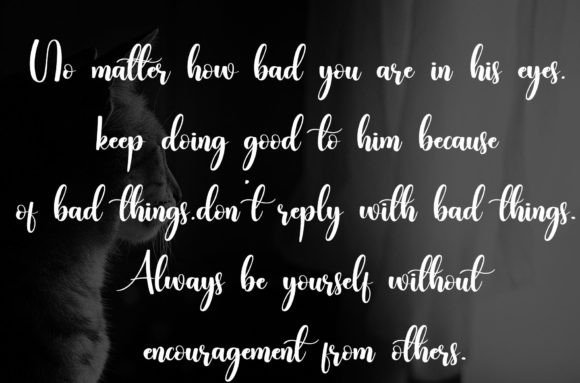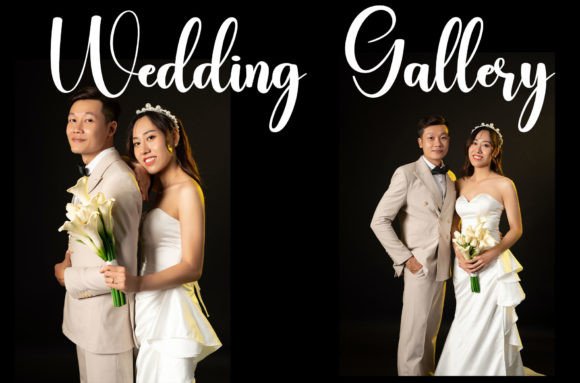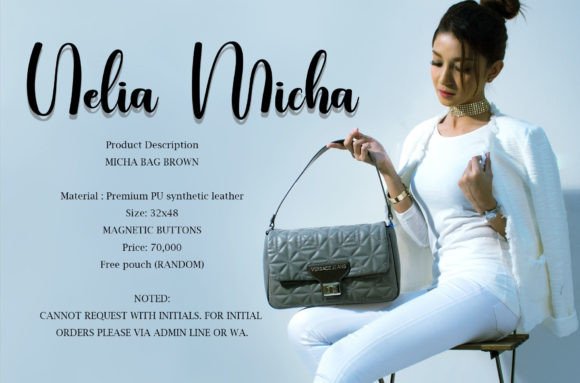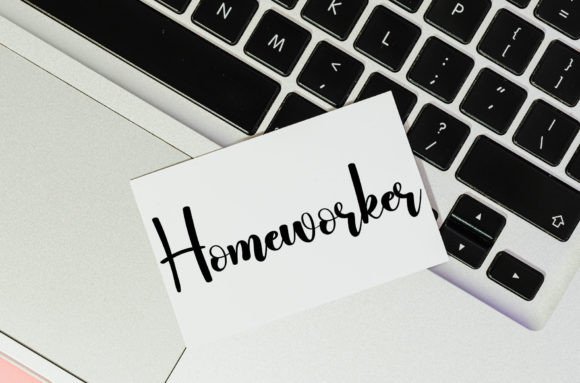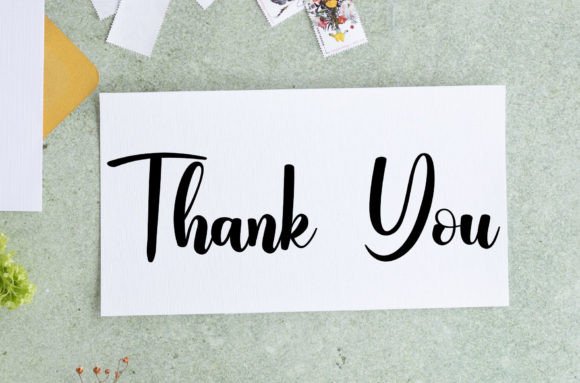
Introduction to Manual Font
As a designer, there’s nothing quite like the feeling of bringing a creative project to life. You’ve poured over inspiration, crafted a concept, and finally, it’s time to add the finishing touches. That’s when the right font can make all the difference. Imagine the gentle curves and playful flourishes of a handwritten font, perfectly capturing the essence of your design.
That’s where Manual Font comes in – a sweet and smooth handwritten font that’s sure to add a personal touch to your designs. With its high-quality, transparent background, this font is a design resource that’s both versatile and easy to use.
Key Features of Manual Font
- Manual Font is a design resource that can be easily integrated into any creative project
- Unique, hand-drawn design elements and subtle texture add a touch of elegance and sophistication
Honest Review: Manual Font
As a designer, I’m always on the lookout for high-quality fonts to elevate my creative projects. Recently, I stumbled upon the Manual Font, and I must say it’s been a game-changer.
- The Manual Font offers a unique and distinctive aesthetic that sets it apart from other fonts.
- The font is highly customizable, allowing you to tailor it to your specific design needs.
- The Manual Font may not be suitable for all design projects, particularly those requiring a more straightforward or modern aesthetic.
Overall, I’m thoroughly impressed with the Manual Font. Its unique style and high quality make it an excellent addition to any designer’s toolkit. With its free download and customization options, it’s a design resource that’s hard to pass up.
Manual Font
Use Manual Font for creative projects such as logos, brochures, and business cards.
Experiment with different font sizes, colors, and styles to create unique and visually appealing designs.
Combine Manual Font with other design elements, such as images and graphics, to create a cohesive and professional look.